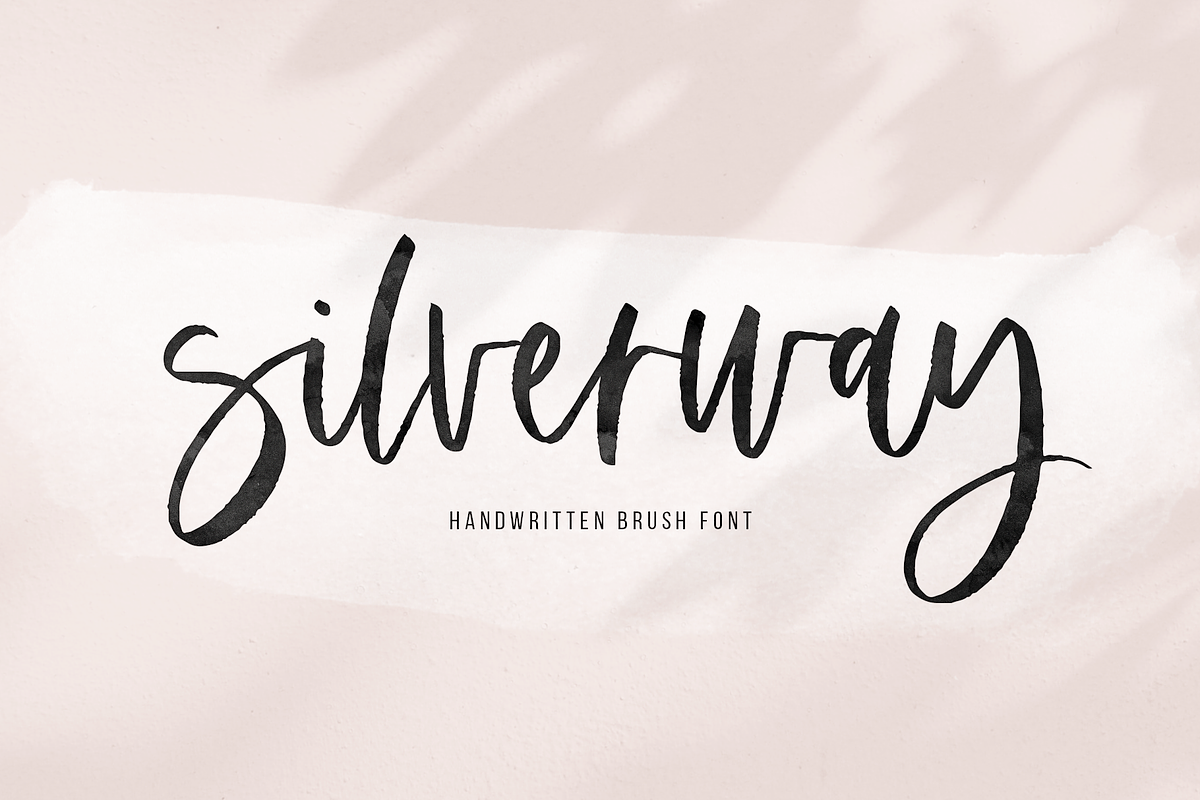
Silverway | Handwritten Brush Font Free Download
Silverway | Handwritten Brush Font Free Download is a stylish and expressive typeface that combines the raw energy of brush strokes with the fluidity of handwritten design. Perfect for creative projects, this font is ideal for crafting logos, posters, social media graphics, invitations, and more. Its natural, artistic style adds a personal touch to any design, making it perfect for brands and projects looking to evoke authenticity and creativity. Whether you're working on an artistic brand identity, crafting a personalized invitation, or designing engaging content, Silverway | Handwritten Brush Font Free Download lets you explore its unique style in personal projects before purchasing a commercial license. Add a touch of creativity and individuality to your designs with this dynamic handwritten brush font.